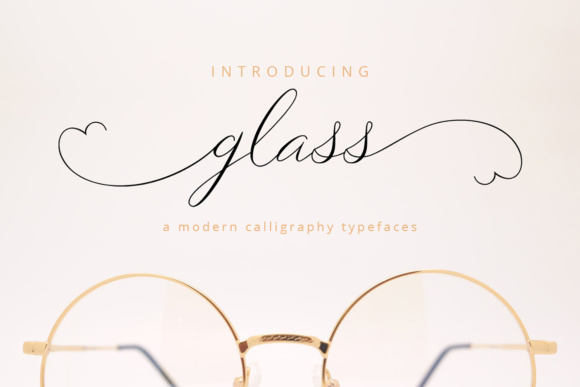
Glass Script Font
Step into a world of sophistication and elegance with Glass Script Font, a timeless creation from the renowned Vegas Type foundry. This exquisite script font captivates with its flowing lines, delicate curves, and a touch of modern charm.
Indulge in the beauty of Glass Script, where each letter dances across the page like a delicate brushstroke. Its graceful swashes add a touch of whimsy and romance, making it the perfect choice for wedding invitations, menus, and inspirational quotes.
With Glass Script, your designs will exude a sense of luxury and refinement. Its clean and elegant lines lend a touch of understated glamour, while its versatility allows it to adapt seamlessly to any occasion.
Unleash your creativity and let Glass Script transform your projects. From elegant wedding invitations to captivating social media posts, this font will add a touch of sophistication and charm to every word you write.
Immerse yourself in the world of Glass Script and experience the beauty of timeless typography. Embrace the elegance, embody the grace, and let your words shine with a touch of brilliance.